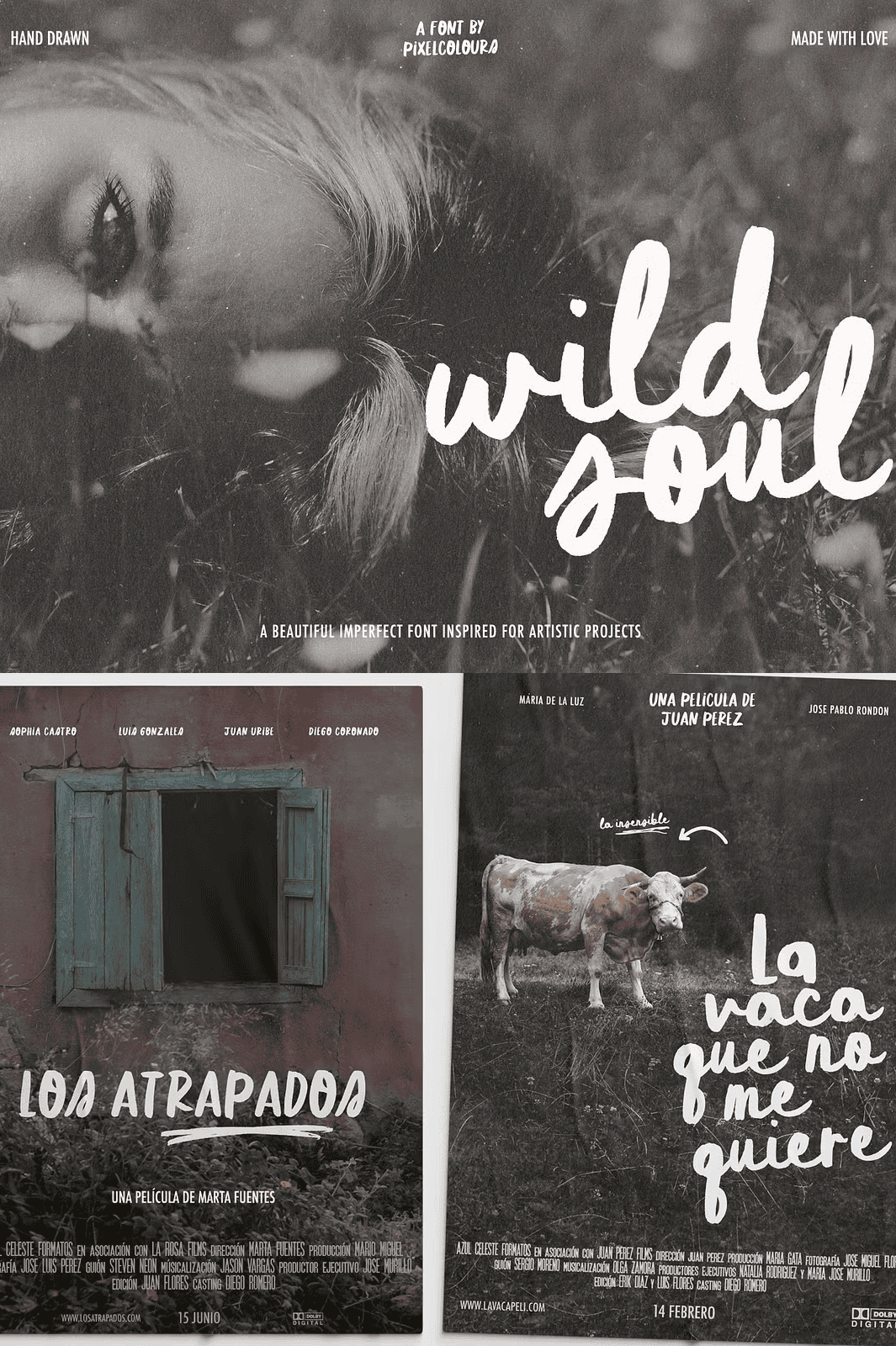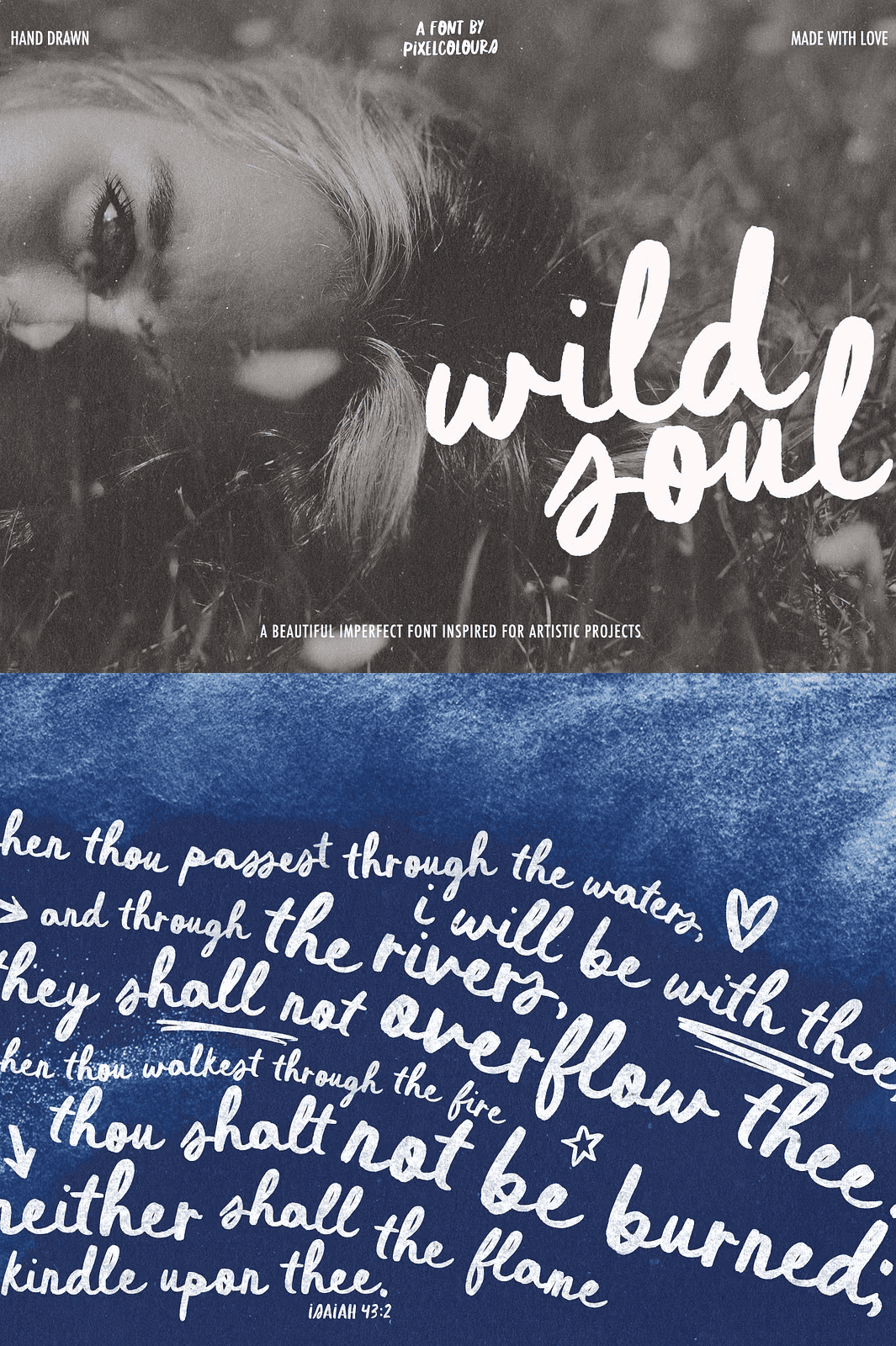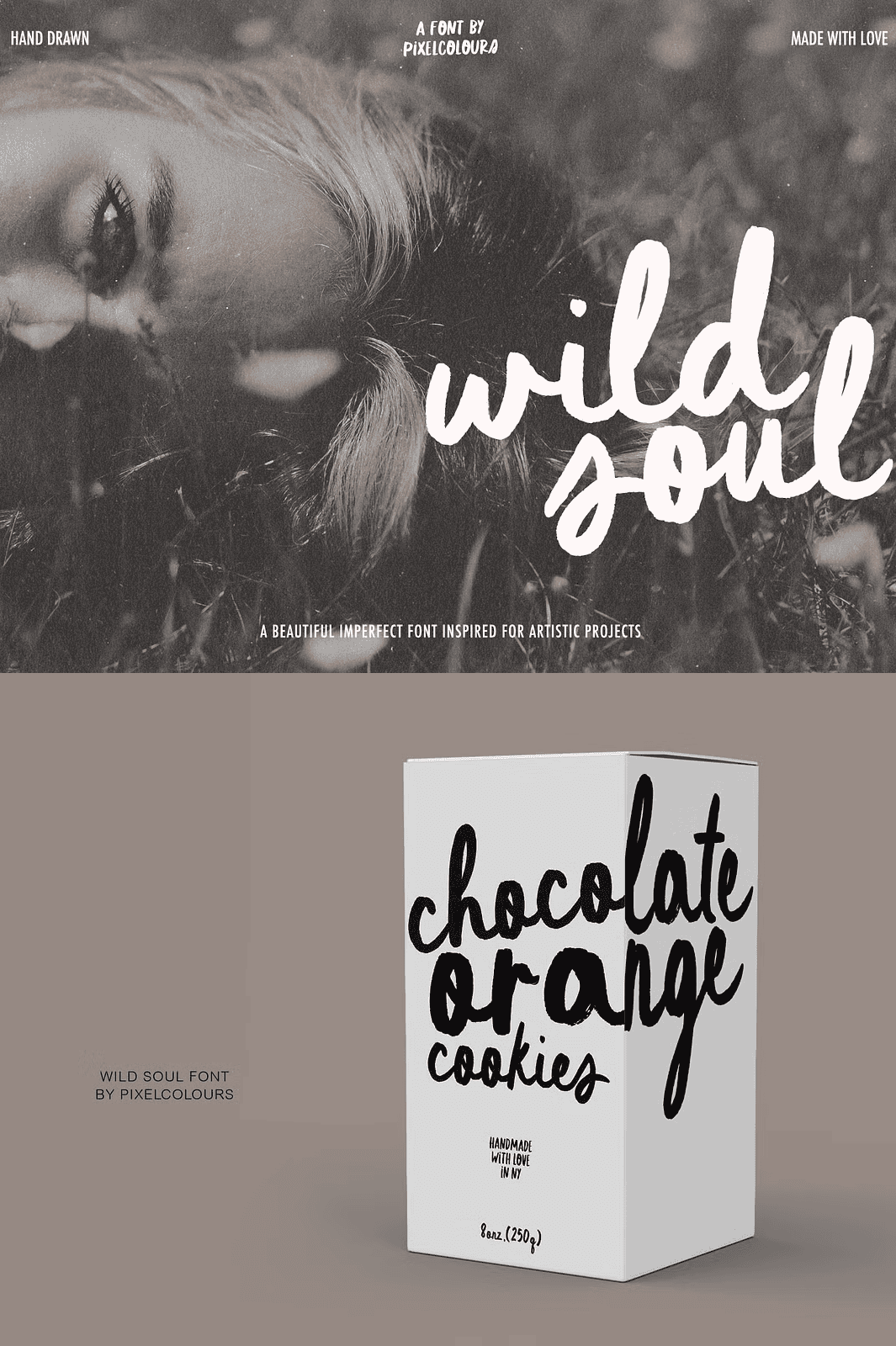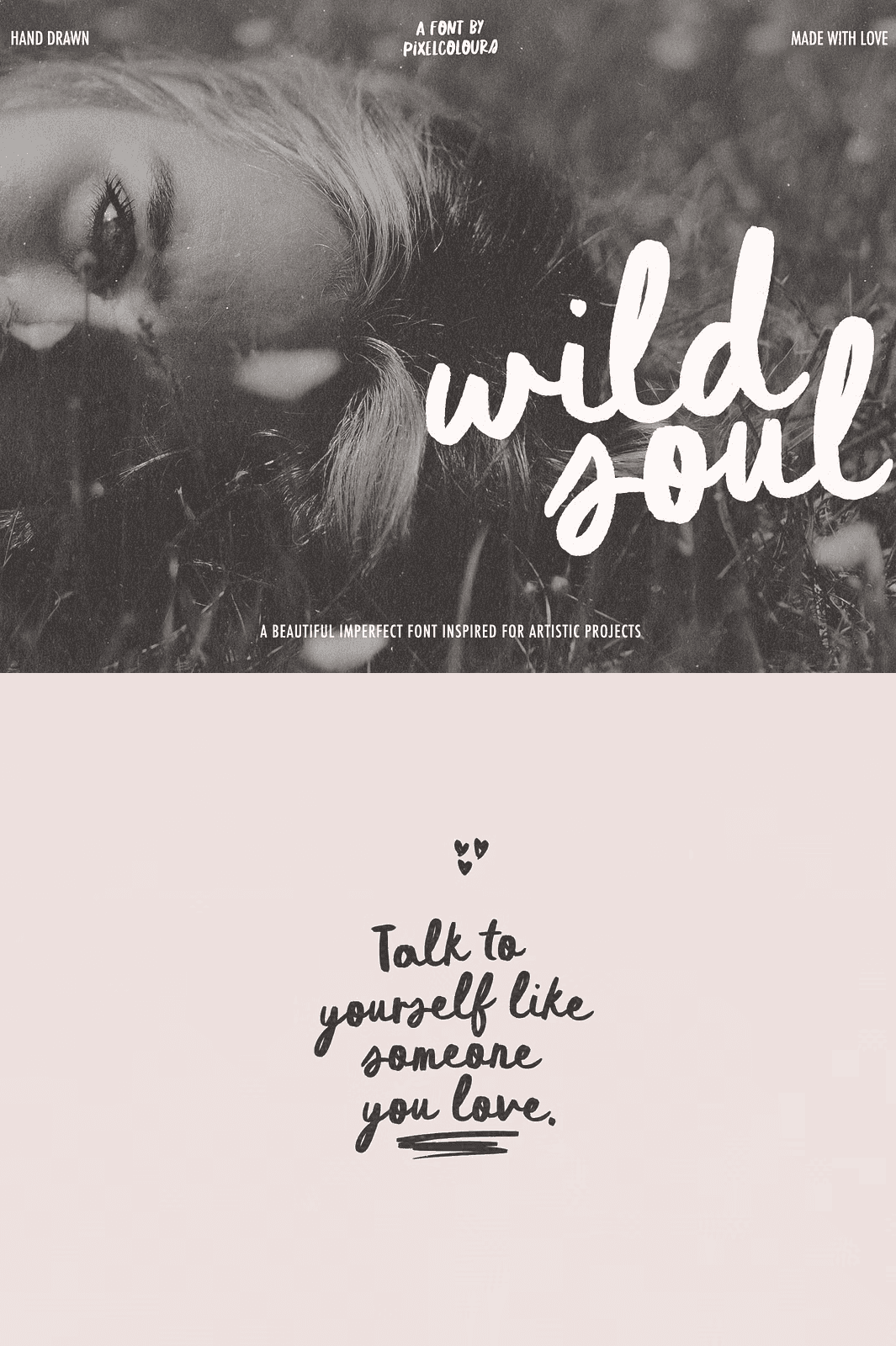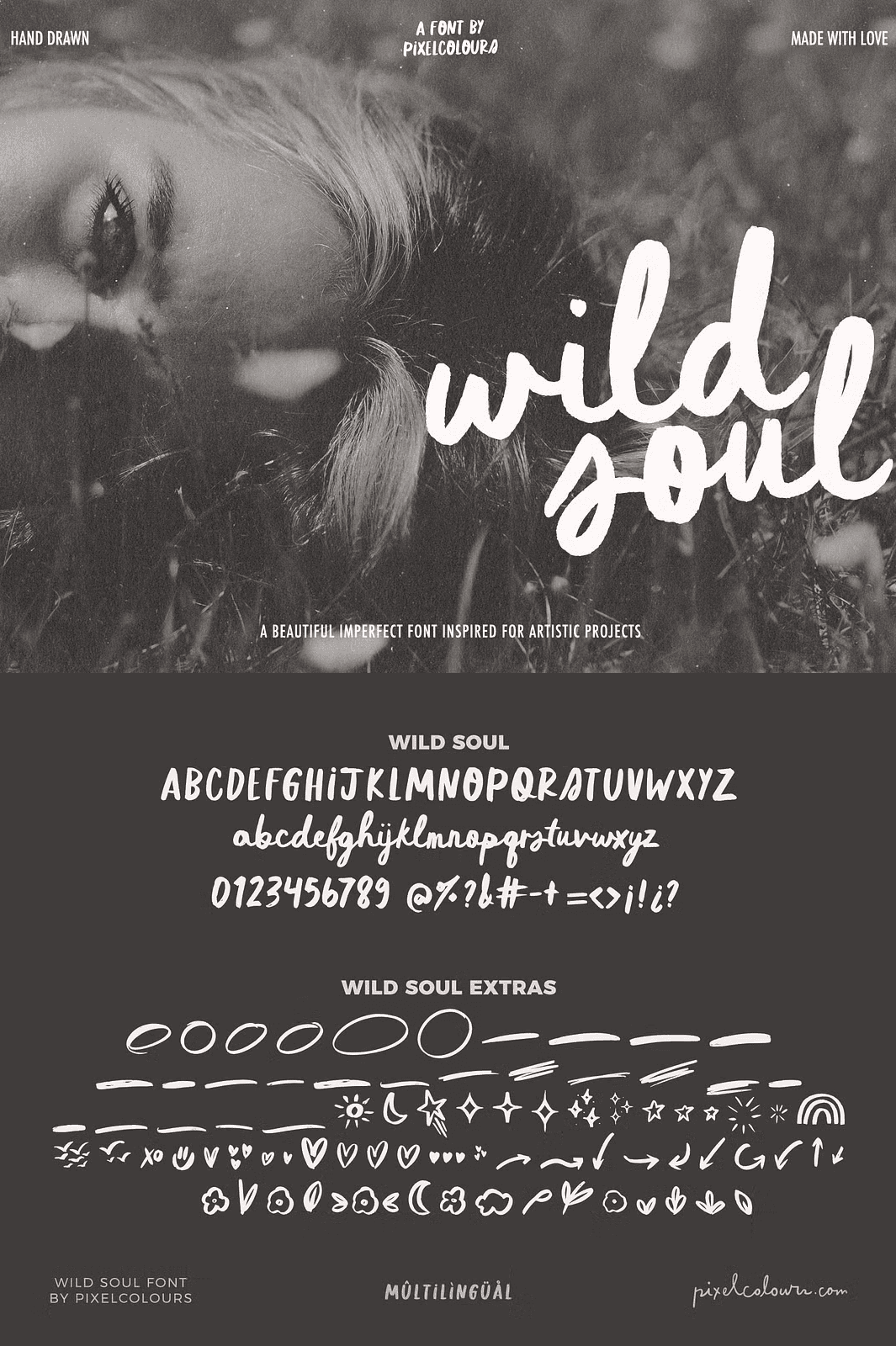
Transform Your Designs with Organic, Expressive Typography
Step into the realm of authentic expression with **Wild Soul**, a bold and distinctive handwritten font duo designed for creators who value imperfection, soul, and visual impact. This isn’t just another script font — it’s a creative manifesto for those who want their designs to feel alive, handcrafted, and deeply personal. Whether you’re crafting bold movie posters, intricate product packaging, inspiring quote graphics, or standout logo designs, Wild Soul delivers the raw, organic energy your projects deserve.
Every stroke in Wild Soul is engineered to mimic the unpredictable beauty of real handlettering — uneven lines, subtle texture, and natural variation that bring warmth and humanity to digital design. This dynamic duo combines expressive character with practical functionality, giving you the freedom to create with confidence and authenticity.
Explore the Two Powerful Fonts in the Wild Soul Duo
**Wild Soul (Script Font):**
The cornerstone of this font family, Wild Soul delivers a fluid, energetic script with intentionally imperfect lines. Its uneven baseline and organic spacing make it ideal for designs that demand emotion, movement, and charm. The font includes a full Latin alphabet (uppercase and lowercase), numerals, punctuation, and standard ligatures, making it highly versatile for both short phrases and long-form text.
**Wild Soul Extras (Dingbats Font):**
Complement your typography with a rich library of custom doodles, decorative flourishes, and playful icons. This supplementary font is packed with unique symbols perfect for embellishing quotes, adding visual flair to social media posts, crafting festive banners, or enhancing stationery and branding materials. Use it to highlight key words, frame titles, or simply add a whimsical touch to your design.
Perfect for Artistic Projects That Demand Personality
Wild Soul thrives in creative applications where authenticity matters most:
– ✅ Art posters and exhibition signage
– ✅ Movie and music event posters
– ✅ Product packaging with a handmade aesthetic
– ✅ Social media quote graphics and Reels content
– ✅ Logo and brand identity design for indie and lifestyle brands
– ✅ Digital and print invitations, thank-you cards, and journals
Its imperfect, hand-drawn nature sets it apart from clean, mechanical fonts — making it a go-to choice for artists, designers, and creators who want their work to feel genuine and expressive.
Don’t just type — **create**. Don’t just design — **express**. Let Wild Soul bring personality, texture, and artistic depth to your next project. Whether you’re launching a small business, promoting an event, or sharing a heartfelt message, this font duo empowers you to stand out with authenticity.
Design Tip: Pair Wild Soul with a clean sans-serif font like Nunito or Poppins for balanced layouts. Use the dingbats font to frame headlines, add visual rhythm to quotes, or create unique social media content that captures attention.